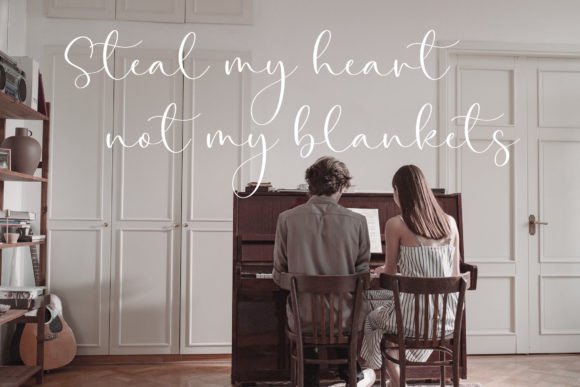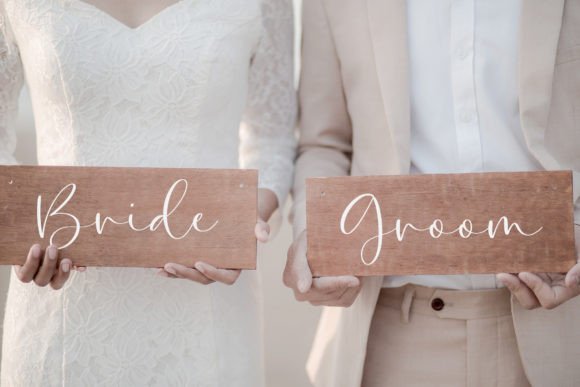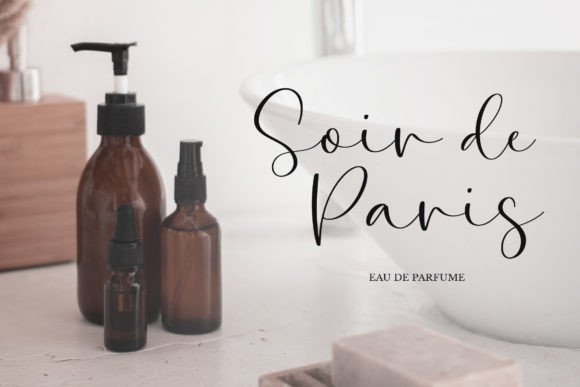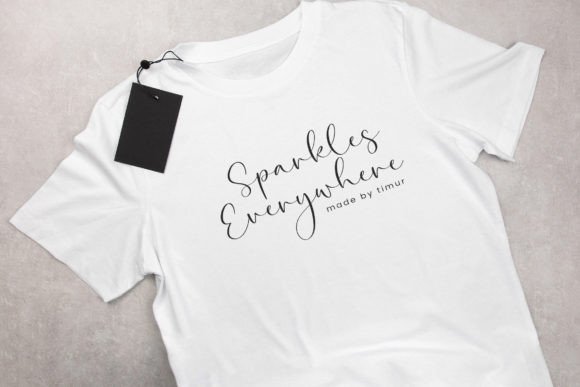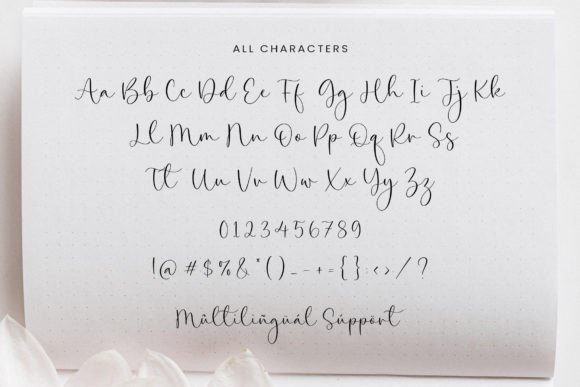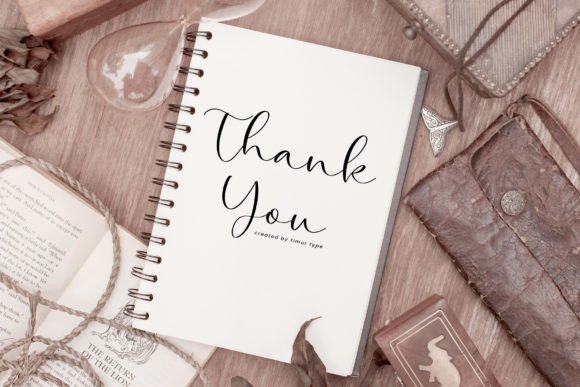
Introduction to Majestic Jasmine Font
Majestic Jasmine is a handwritten script font.
Majestic Jasmine is perfect for product packaging, branding projects, magazines, social media, weddings, or just used to express words above the background .